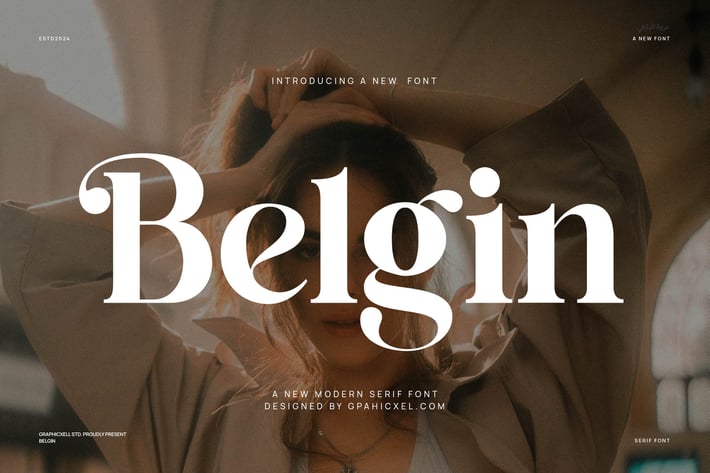
Belgin Elegant Ligature Typeface
Belgin Elegant Ligature Typeface is a beautiful script font that adds a stylish and graceful touch to your designs. It features smooth, flowing lines with elegant ligatures, making your text look connected and natural. Because of this, it works well for many creative projects, such as logos, invitations, and branding.
Moreover, this font combines classic calligraphy with a modern look. Each letter is carefully shaped to be clear and easy to read, while still showing a personal, hand-crafted style. Therefore, Belgin is perfect for wedding invitations, fashion designs, boutique packaging, and luxury brands. Its soft curves and neat ligatures create a clean yet decorative feel.
In addition, Belgin Elegant Ligature Typeface offers these key features:
- Smooth and stylish script style with natural ligatures
- Great for elegant logos, invitations, and branding
- Modern calligraphy that is both clear and attractive
- Includes uppercase, lowercase, numbers, and punctuation
- Works well for social media posts, headlines, and product packaging
Furthermore, this font is highly flexible. Whether you want to create a simple logo or a detailed invitation, Belgin adapts easily. Because it combines elegance with readability, your designs will look professional and warm. Also, many ligatures help your text feel hand-lettered and unique.
In short, if you need a script font that is both stylish and easy to read, Belgin Elegant Ligature Typeface is an excellent choice. It fits perfectly in creative projects that require a modern, elegant, and artistic look. With its attention to detail and versatility, you can quickly design beautiful, memorable results.